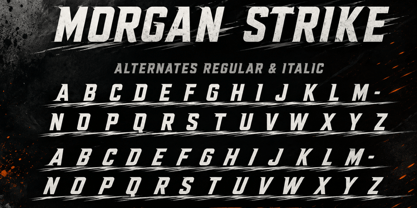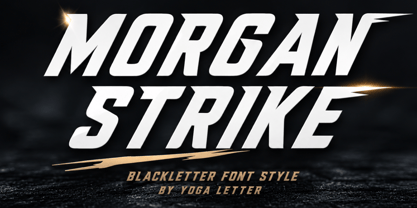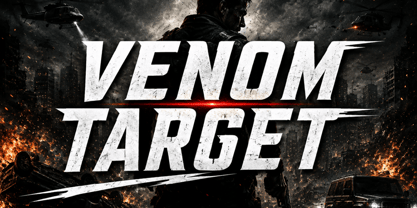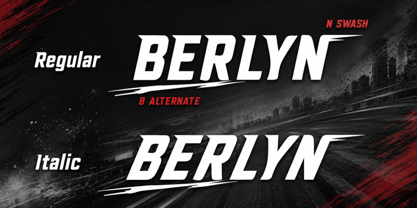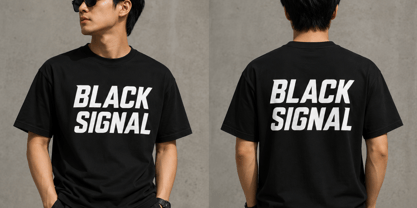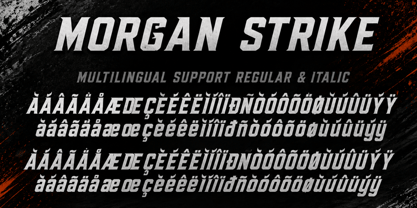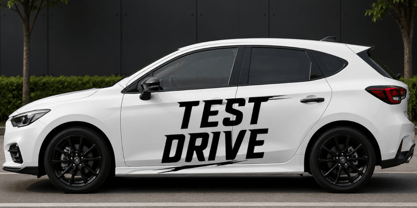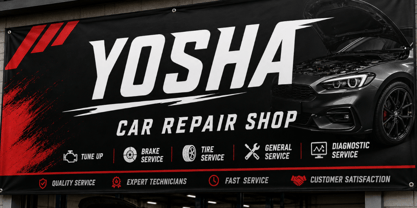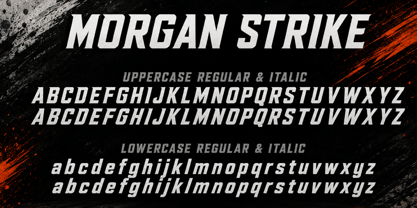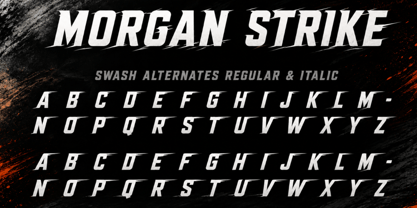
Morgan Strike
by Yoga Letter
The Morgan Strike Font Family was designed by Isroni Yoga Prasetya and published by Yoga Letter. Morgan Strike contains 2 styles and family package options. More about this family
"Morgan Strike" is a modern and premium blackletter font. This font has a strong character, a speedy feeling, bold, and confident. It has two styles: regular and italic, equipped with alternates, swashes, uppercase letters, lowercase letters, numerals, punctuations, and multilingual support. It is suitable for business branding, logos, print, banners, movie titles, product names, business logos, and more.
Designers: Isroni Yoga Prasetya
Foundry: Yoga Letter